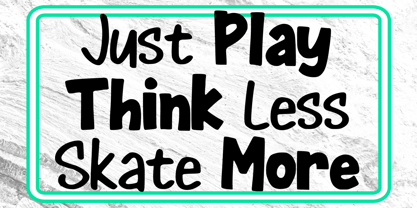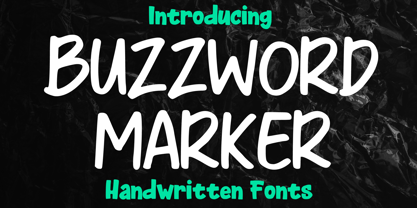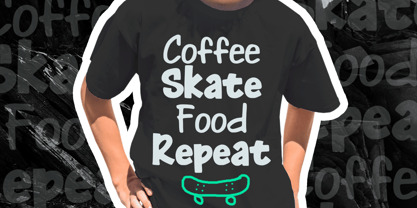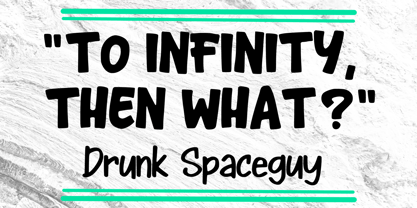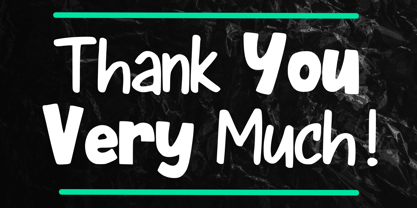
Buzzword Marker
by Mvmet
The Buzzword Marker Font Family was designed by Gabriel Valentinus and published by Mvmet. Buzzword Marker contains 2 styles and family package options. More about this family
Introducing Buzzword Marker, an energetic and trendy handwritten font that encapsulates the spirit of dynamic street art and swift graffiti tags. With not one but two distinctive versions, this font promises to elevate your designs with a creative boost. Utilize this unique font to transform a wide array of design projects, adding unrivaled charisma. From stickers to dazzling logo designs, stylish t-shirts to noteworthy magazine covers, playful comics to compelling cartoon illustrations, Buzzword Marker infuses an edgy essence into every design endeavor. Enhance your creativity with this one-of-a-kind font that guarantees to bring an intriguing cool factor to your projects!
Designers: Gabriel Valentinus
Foundry: Mvmet